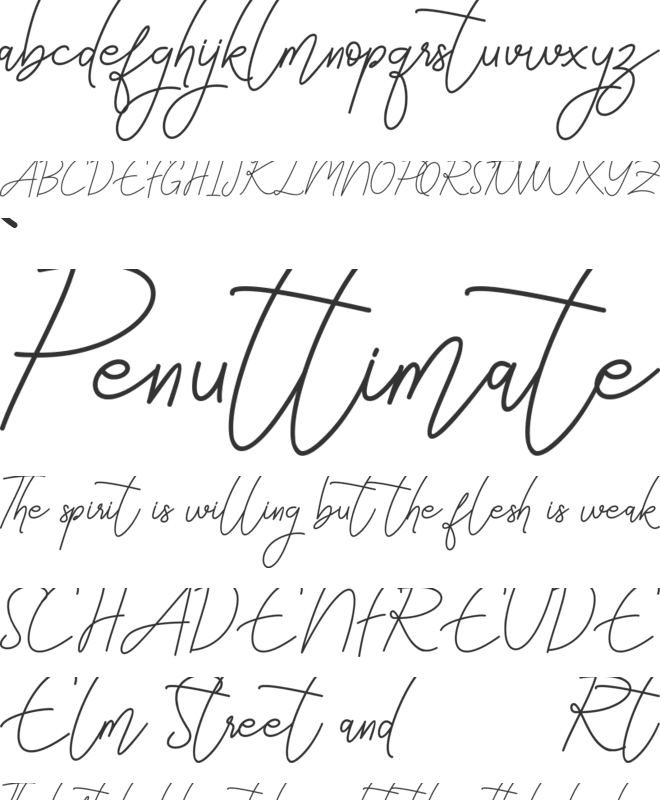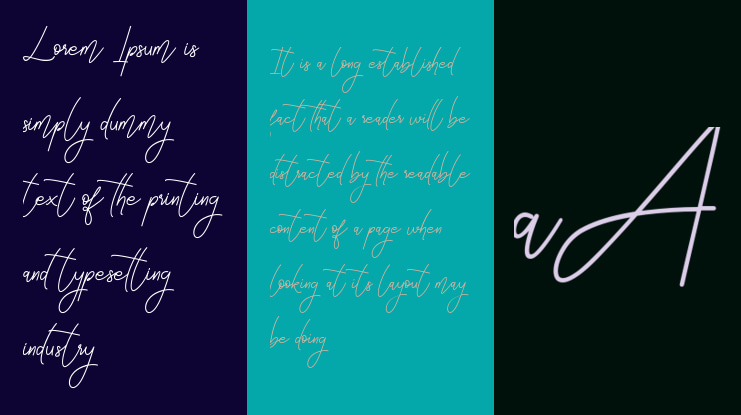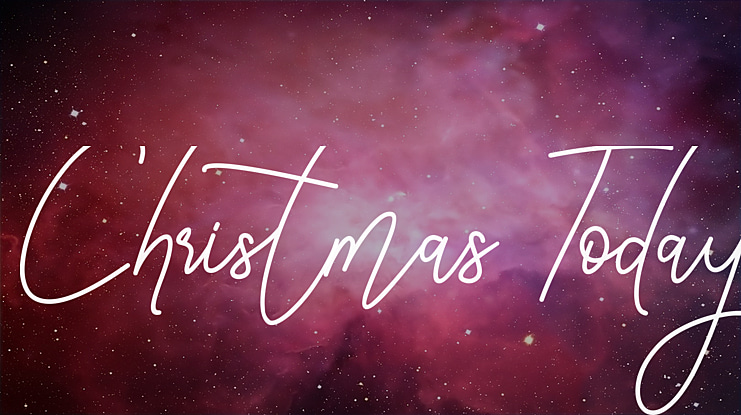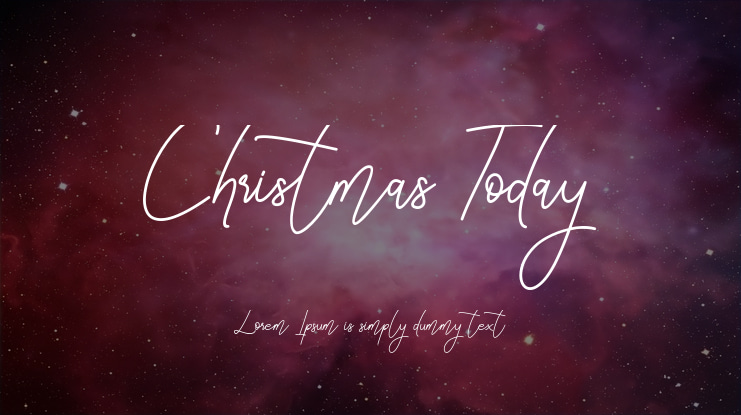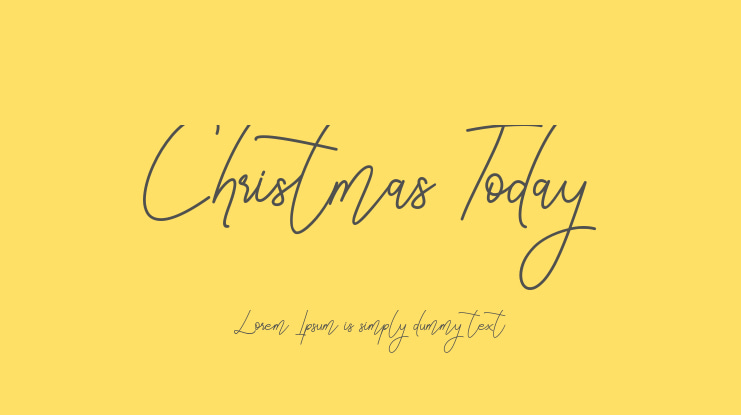
Christmas Today Font
Nox Studio 2021 ( Sarif Hidayat)
Christmas Today is a dazzling and timeless handwritten font. It is the best choice for creating eye-catching logos, branding, invitations and quotes. This font is PUA encoded which means you can access all of the glyphs and swashes with ease!